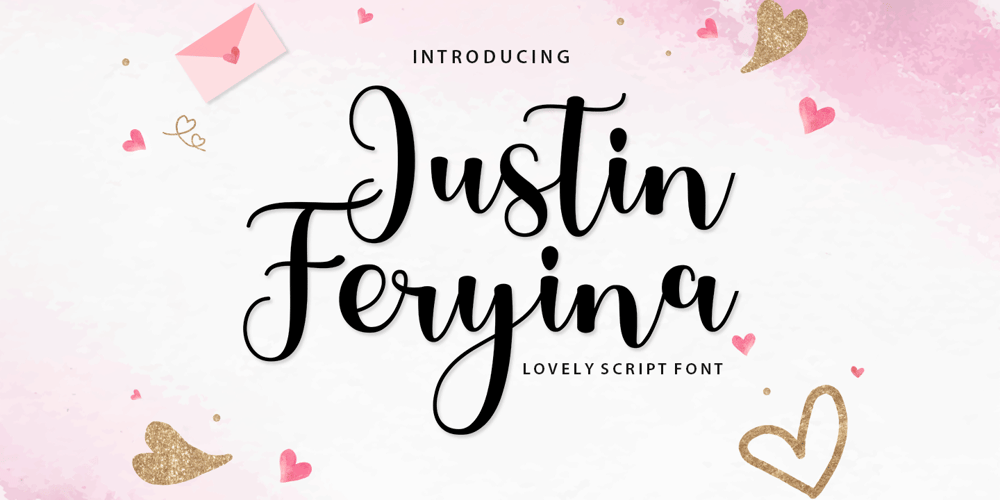
Justin Feryina
Justin Feryina font
Justin Feryina Font Family was designed by Muji Bullah and published by Letter Muray. Justin Feryina contains 1 styles and family package options. Justin Feryina is a lovely and delicate script font that exudes elegance and class. This font was particularly crafted for those who need a beautiful and refreshing look to their designs. Justin Feryina is PUA encoded which means you can access all glyphs and swashes with ease!